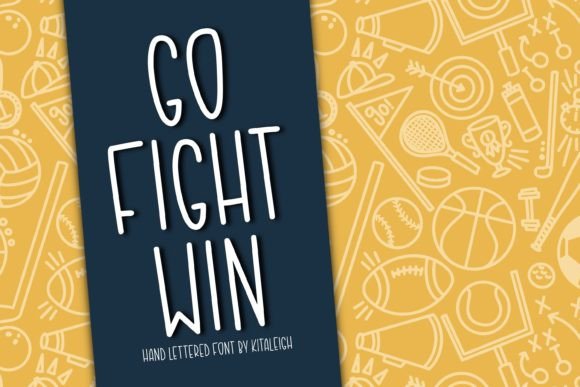
Introducing Go Fight Win Font - the ultimate choice for unleashing your creative potential! Crafted by the talented team at Kitaleigh LLC, this sans-serif font family is here to revolutionize your design projects. Get ready to make a bold statement and captivate your audience like never before!
With Go Fight Win Font, you have the power to elevate your creations to new heights. Whether you're designing a logo, creating eye-catching headlines, or enhancing your website's typography, this font has got you covered. Its versatility allows it to seamlessly adapt to any project, making it the go-to choice for designers worldwide.
But what sets Go Fight Win Font apart from the rest? It's not just a font - it's a catalyst for inspiration. By downloading this font, you're not only gaining access to a powerful design tool, but you're also unlocking a world of unlimited possibilities. Let your imagination run wild and watch as your ideas come to life with every stroke of this remarkable typeface.
Transform your projects from ordinary to extraordinary with Go Fight Win Font. Its unique blend of modernity and sophistication will leave a lasting impression on your audience. Stand out from the crowd and make a statement that demands attention.
Don't settle for mediocre typography. Embrace the extraordinary and choose Go Fight Win Font. Ignite your creativity, enhance your designs, and leave a lasting impact on your viewers. The time to take your projects to the next level is now - start exploring our collection and let your creativity soar!